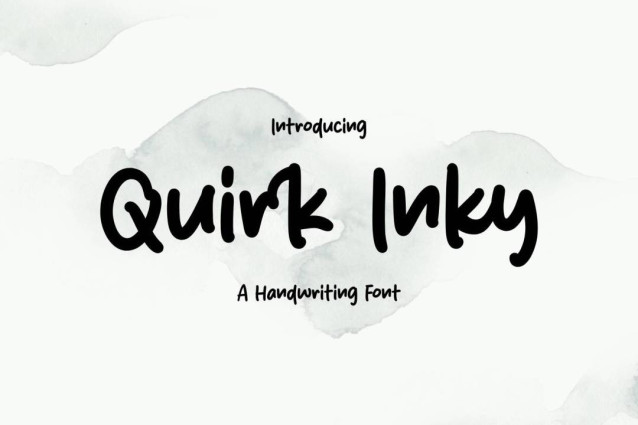
Quirk Inky Font
Quirk Inky Font is a simple and friendly handwritten font. Its natural and unique style makes it incredibly fitting to a large pool of designs. The only limit is your imagination!